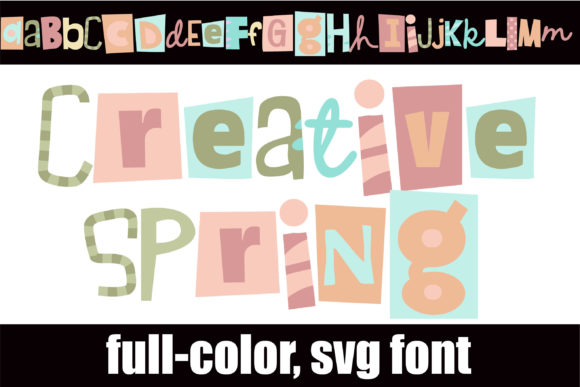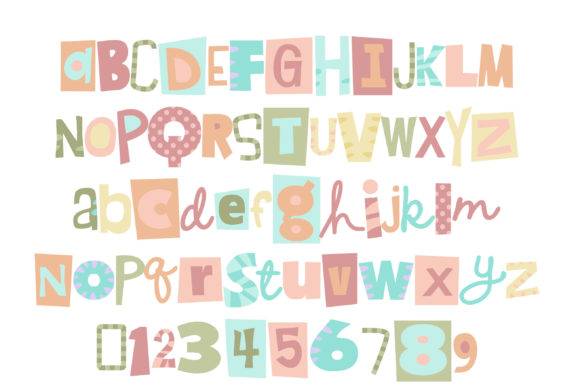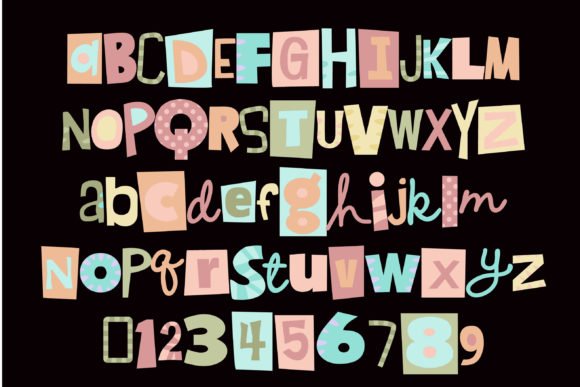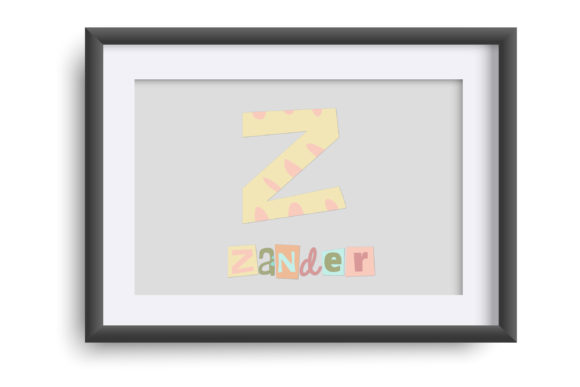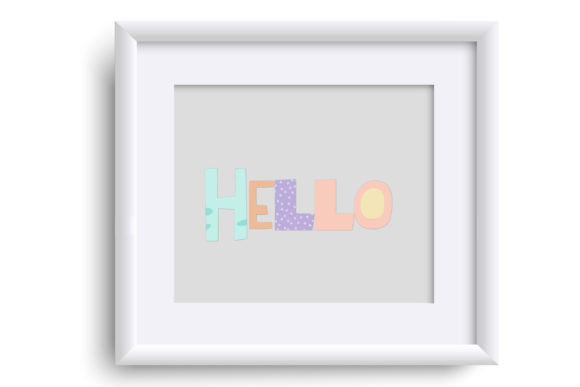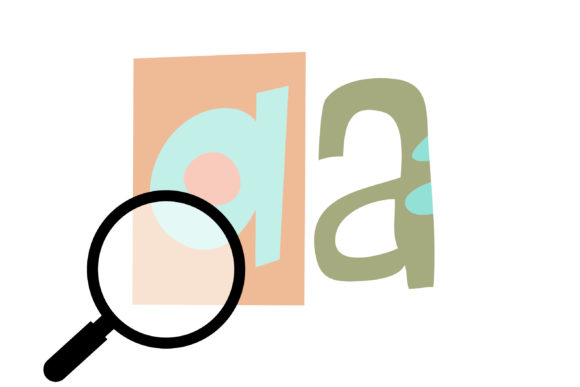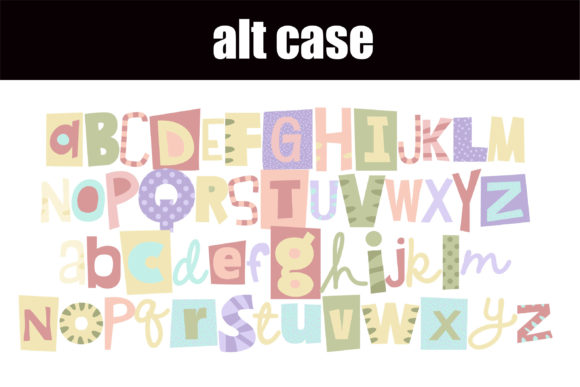
Creative Spring Font
About Creative Spring Font
Creative Spring is a delightful full-color font that showcases brightly creative lettering in a soft and spring-like color palette. With its vibrant hues and playful design, this font instantly adds appeal and visual impact to your creations.
The combination of a lively color palette and creative letterforms makes Creative Spring stand out from the crowd. Whether you’re designing posters, greeting cards, social media graphics, or any other visual content, this font will infuse your projects with a fresh and energetic vibe.
The PUA encoding of Creative Spring ensures easy access to a wide range of amazing glyphs and ligatures. This means you can effortlessly explore various letter combinations and decorative elements, allowing you to customize and personalize your text with ease.
Embrace the vibrancy and creativity of Creative Spring to enhance your designs and captivate your audience. Let this font be the springboard for your imagination, allowing your creations to bloom with beauty and allure. The combination of its stunning colors and captivating lettering will undoubtedly make your designs stand out and leave a lasting impression.